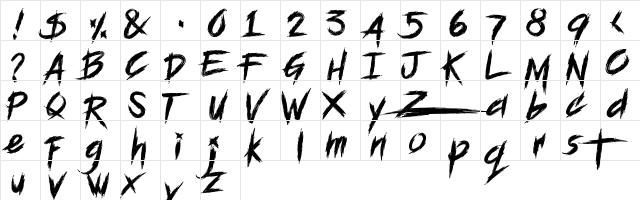
BLOODSEEKER DEMO Regular
| Foundry | Knackpack Studio |
| Designer | Knackpack Studio |
Design Context for BLOODSEEKER DEMO Typeface
BLOODSEEKER DEMO leans into the macabre with letterforms designed to disturb and intrigue in equal measure.
Ideal for Halloween projects, horror film titles, haunted house signage, and dark editorial design.
Font Pairing: Pair with a clean neutral sans-serif for body copy to let BLOODSEEKER DEMO's character lead without overwhelming the composition.
Pro Tip: BLOODSEEKER DEMO works best as a headline or focal element. Pair it against plain, neutral body text to amplify the contrast.